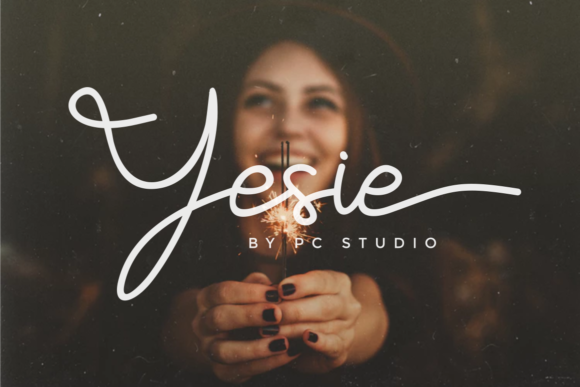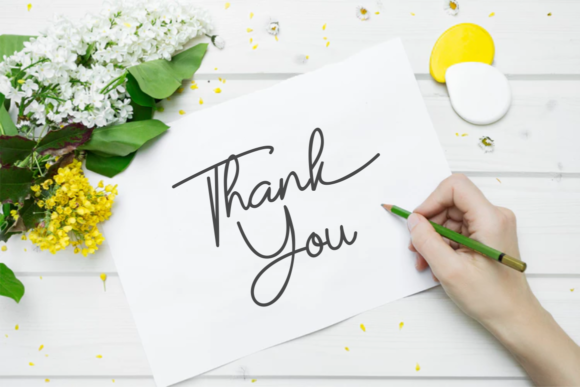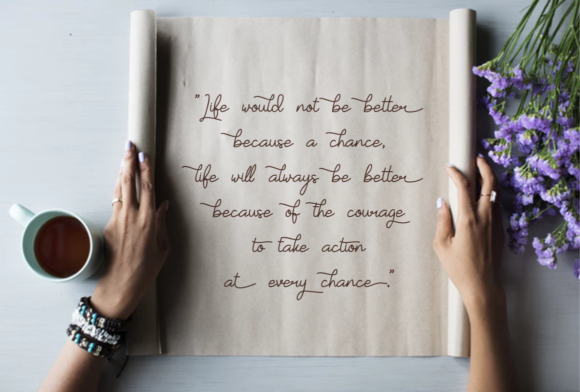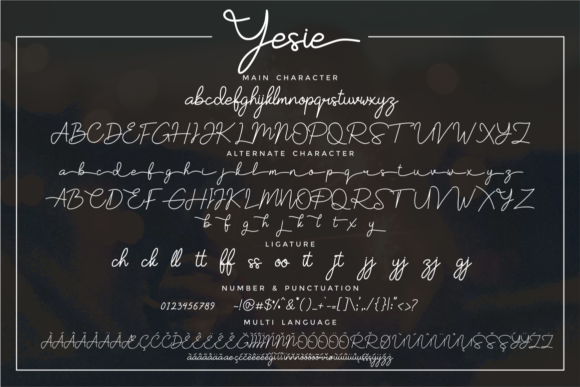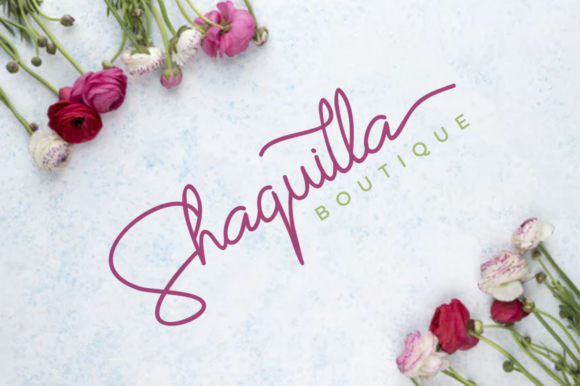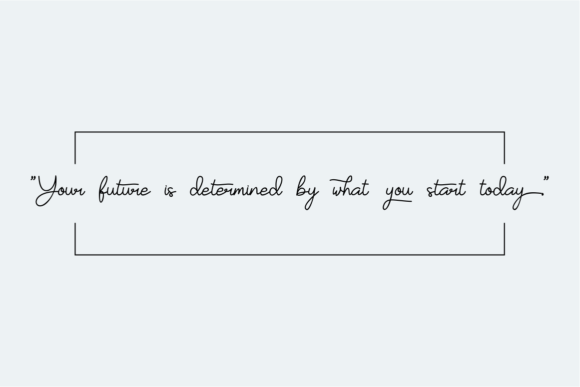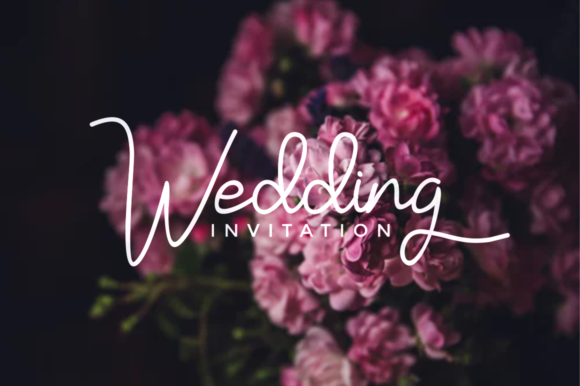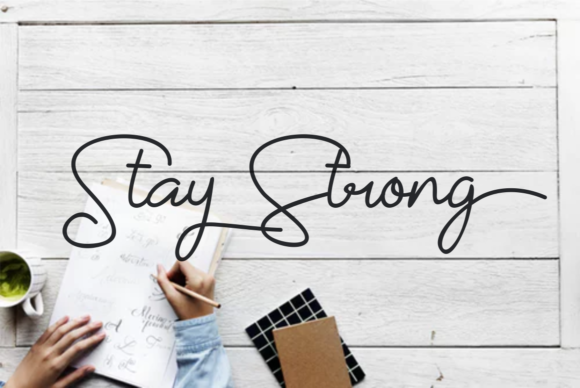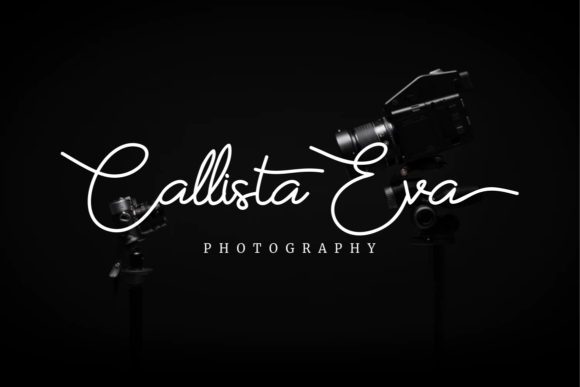
Yesie Script Font
About Yesie Script Font
YESIE is a monoline, cursive, legible script font which can be used on a wide variety of designs such as: headlines, titles, headings, logos, posters, invitations, books, and any other creative design.